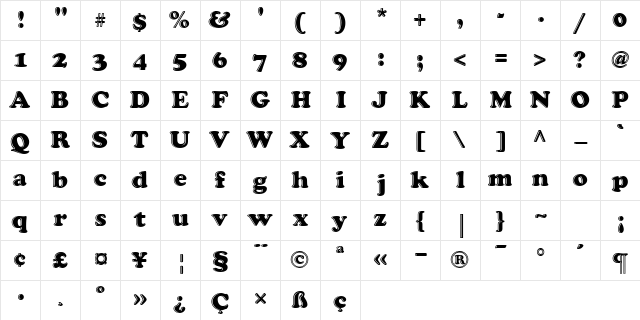
Grease Regular Font Preview
Grease Regular
Design Context for Grease Typeface
Grease offers clean, dependable letterforms without strong stylistic allegiance, making it a practical choice for designers who need flexibility.